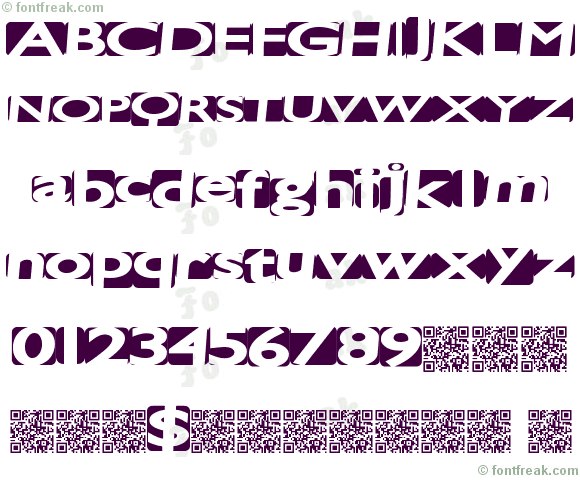
SpaceCats
The SpaceCats font, created by Xerographer Fonts in 2013, is a distinctive display typeface that captures attention with its playful and whimsical design. This font belongs to the decorative category, characterized by its unique letterforms that evoke a sense of fun and creativity. The strokes alternate between thick and thin, giving the characters a dynamic appearance that stands out in any layout. The spacing is thoughtfully designed to enhance readability while maintaining an engaging visual flow, making it suitable for various applications.
The SpaceCats font is especially effective for use in children's books, playful branding, creative event invitations, and eye-catching posters. Its quirky nature lends itself well to projects aimed at a younger audience, or those that want to convey a sense of joy and adventure. Graphic designers will find this font particularly useful for creating memorable logos or packaging that requires a light-hearted touch. Small business owners in the creative sector, such as toy stores or cafes, can also leverage its charm to attract customers.
The target audience for the SpaceCats font includes graphic designers, small business owners, and content creators looking for a unique typeface that can bring their projects to life. Its versatility allows it to be used in various contexts, from digital media to print.